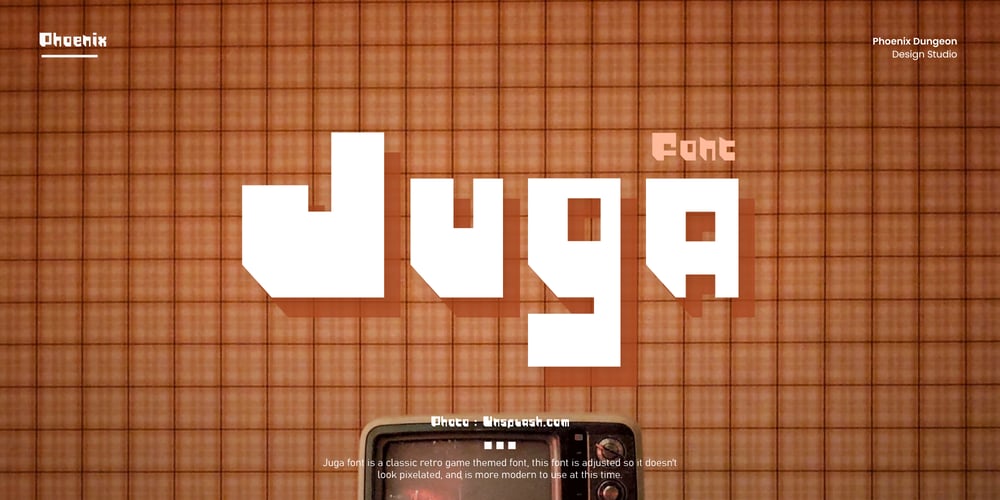
Juga
Juga font
Juga Font Family was designed by Alif Naufal Muzakki and published by Phoenix Group. Juga contains 1 styles and family package options. Juga font is a classic retro game-themed font, this font is adjusted so it doesn’t look pixelated, and is more modern to use at this time.